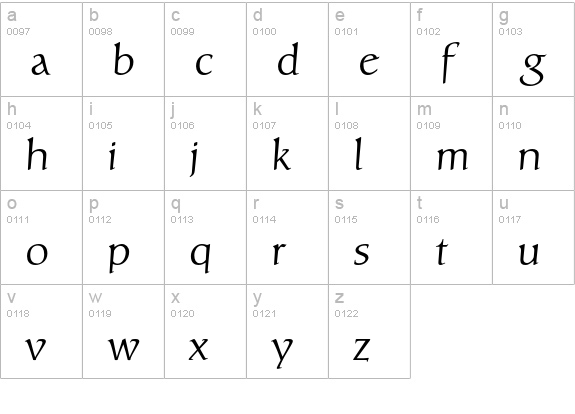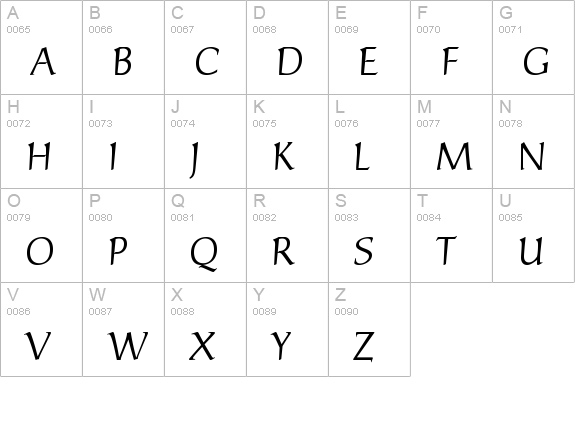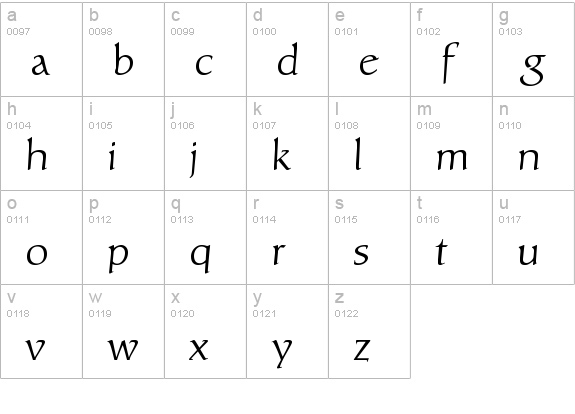
Carolina Font Details
Carolina font is a stunning display typeface that exudes elegance and sophistication. With its graceful curves and stylish design, Carolina is perfect for adding a touch of class to your projects. This versatile font is ideal for logos, branding, invitations, and more. The best part about Carolina font is that it is completely free to download. You can get your hands on this beautiful typeface at FontsMarket.com. Don't miss out on the opportunity to enhance your designs with the timeless charm of Carolina font. Download it today and elevate your creative projects to a whole new level.